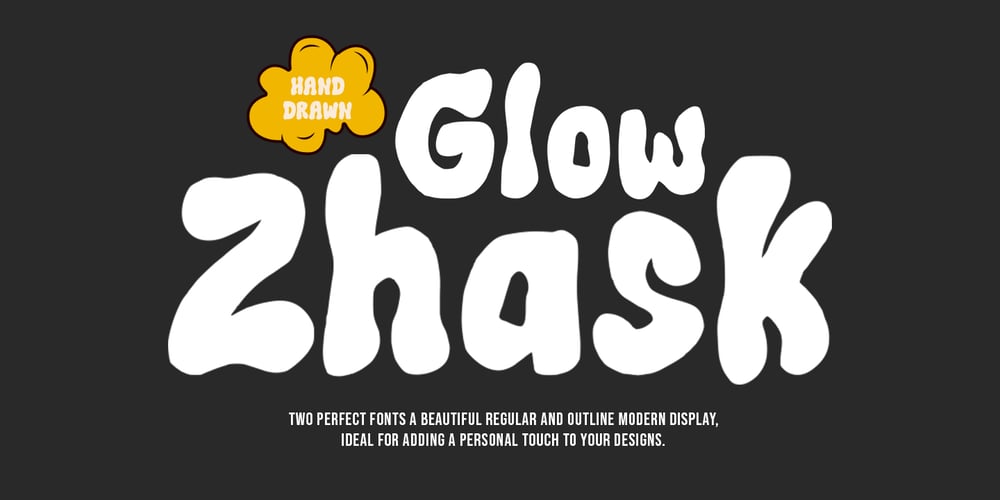
Glow Zhask Font Family was designed by Naufal Paramata and published by Youngtype. Glow Zhask contains 2 styles and family package options. Namyra Regular and Namyra Outline is a hand brush font made with brushes and ink. This typeface is ideal for use in thick watercolor designs or handwriting styles, such as blog titles, posters, wedding elements, t-shirts, clothing, book covers, business cards, greeting cards, branding, merchandise etc.Contains full set :UppercaseLowercaseLigaturesPunctuationnumbermultilingual support.Thank you!